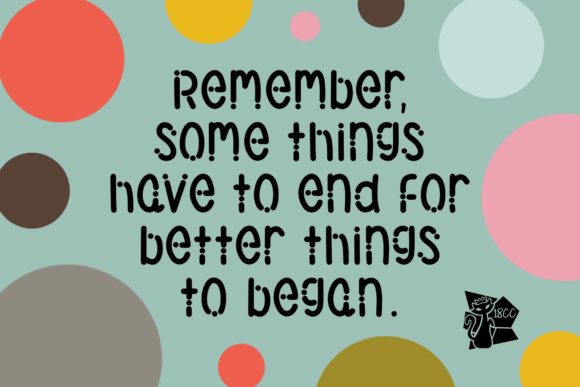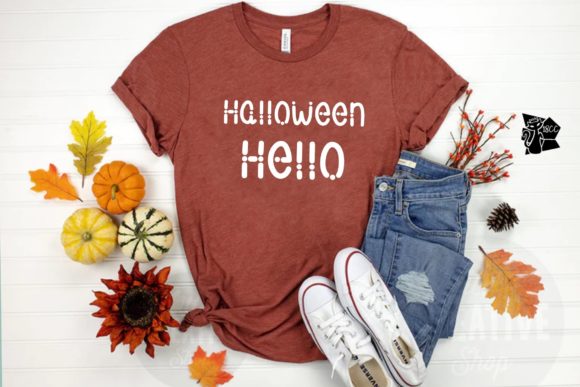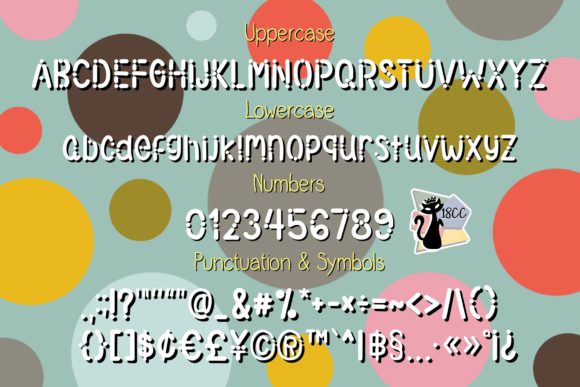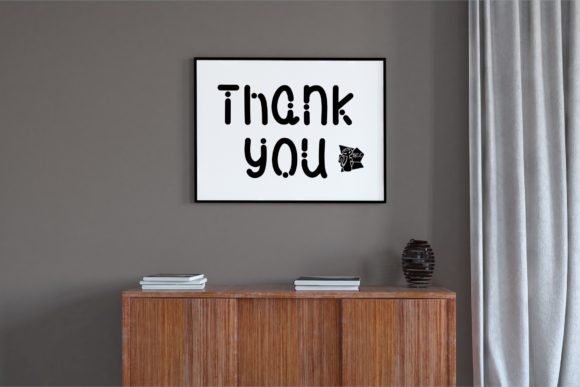
Introduction to Indot Font
Indot is a cute and friendly display font.
This font is the perfect fit for all of your logos, branding, social media, crafty DIY projects, and much more .